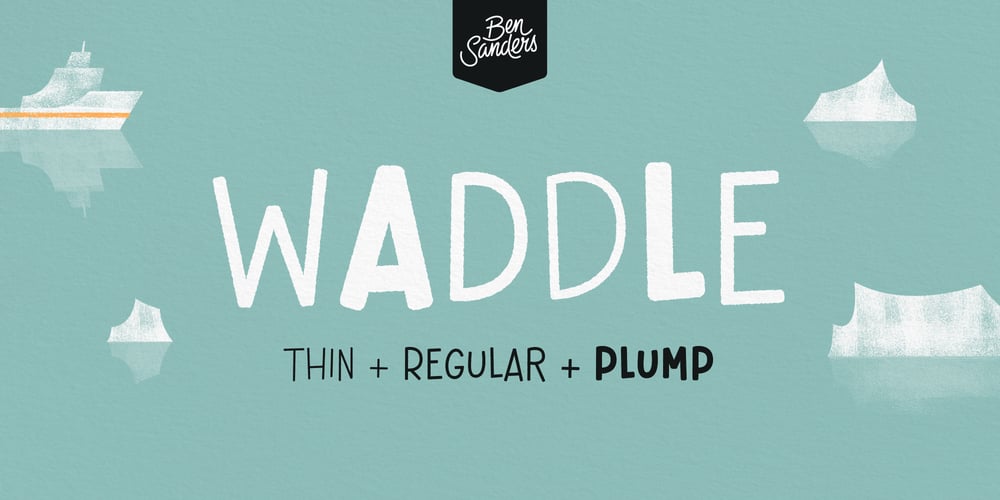
Waddle Font Family was designed by Ben Sanders and published by Ben Sanders. Waddle contains 3 styles and family package options. Waddle is inspired by the playfulness of mid-century jazz albums, opening title sequences and movie posters. Friendly, rounded, slightly roughed, with a bouncy baseline, this unique typestyle boasts a generous number of glyphs and ligatures across all three weights. Waddle Thin is perfect for body copy and is both fun and elegant. Waddle Plump has been designed for bold headlines and titles. Waddle Regular is an ideal all-rounder. Combine the Waddle Family for maximum affect the next time you need to get a playful and positive message across to an audience of any age. Not too kiddy, not too serious … just right.